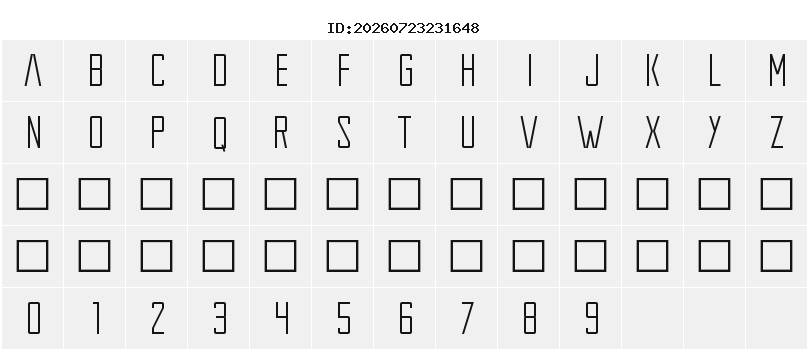
• Font Name: Extros Backstage
• Designer: imagex
About Extros Backstage.ttf
Extros Backstage.ttf is a modern, elegant sans-serif font designed for ultimate readability and visual harmony. Perfect for branding, headlines, web design, and print materials.